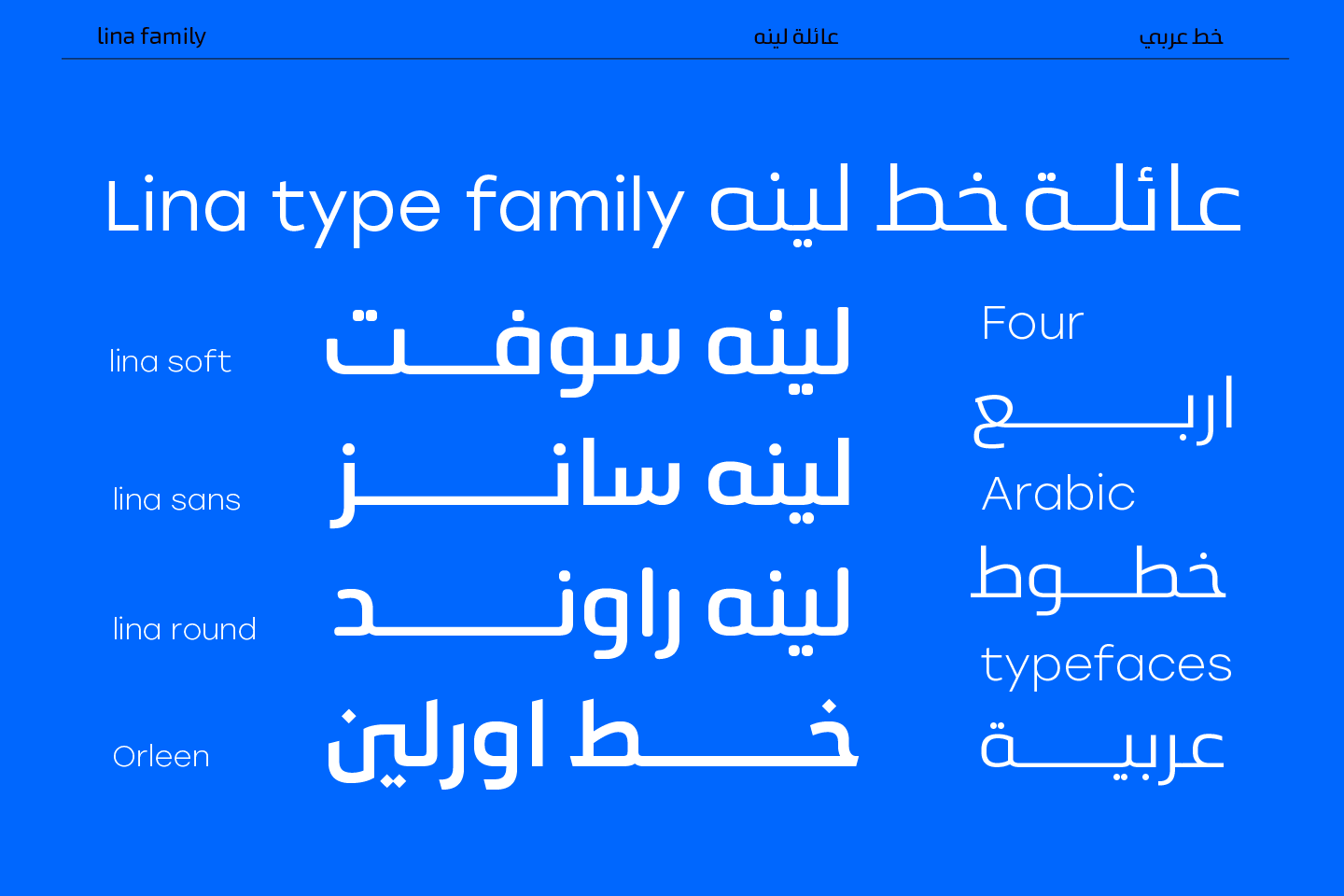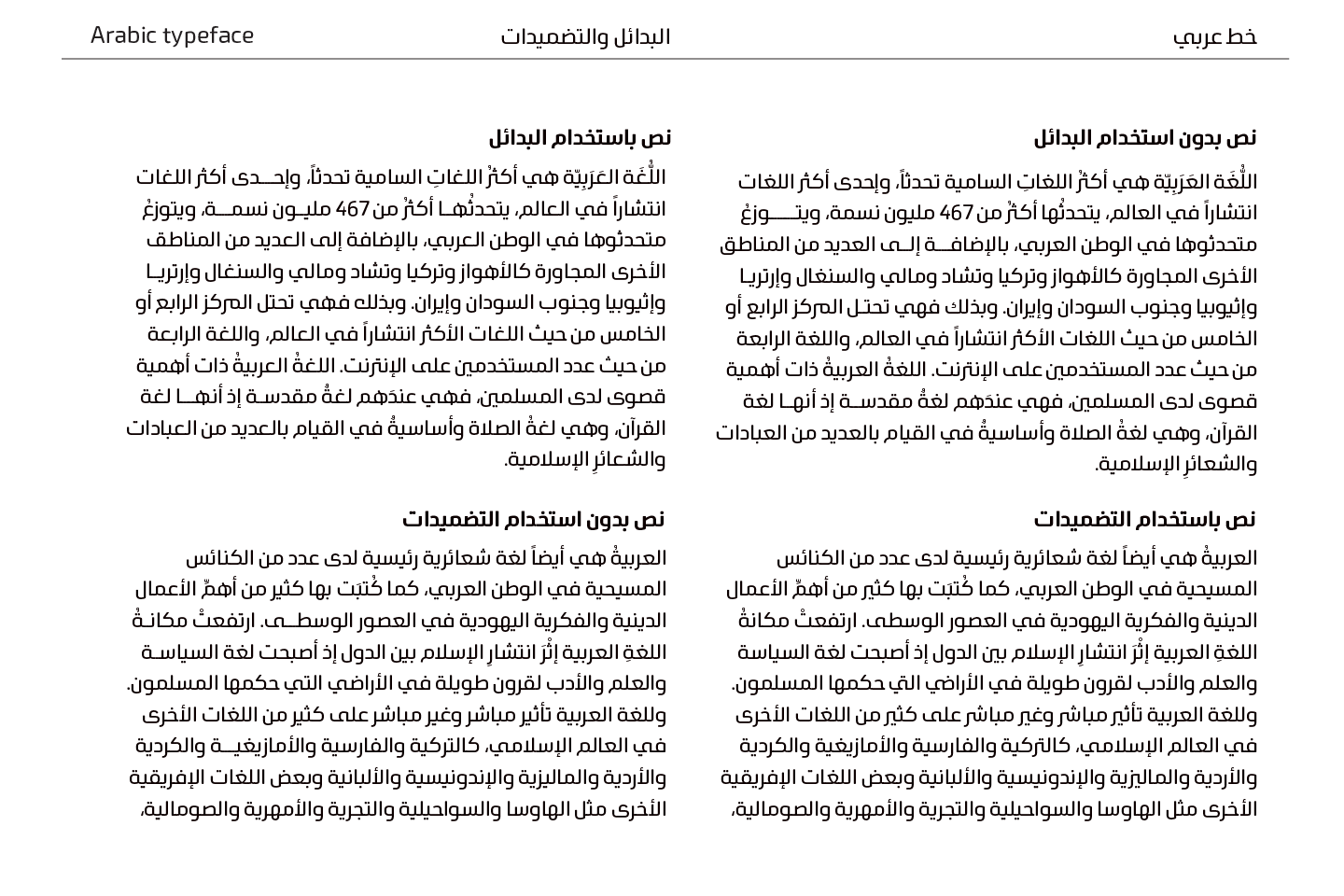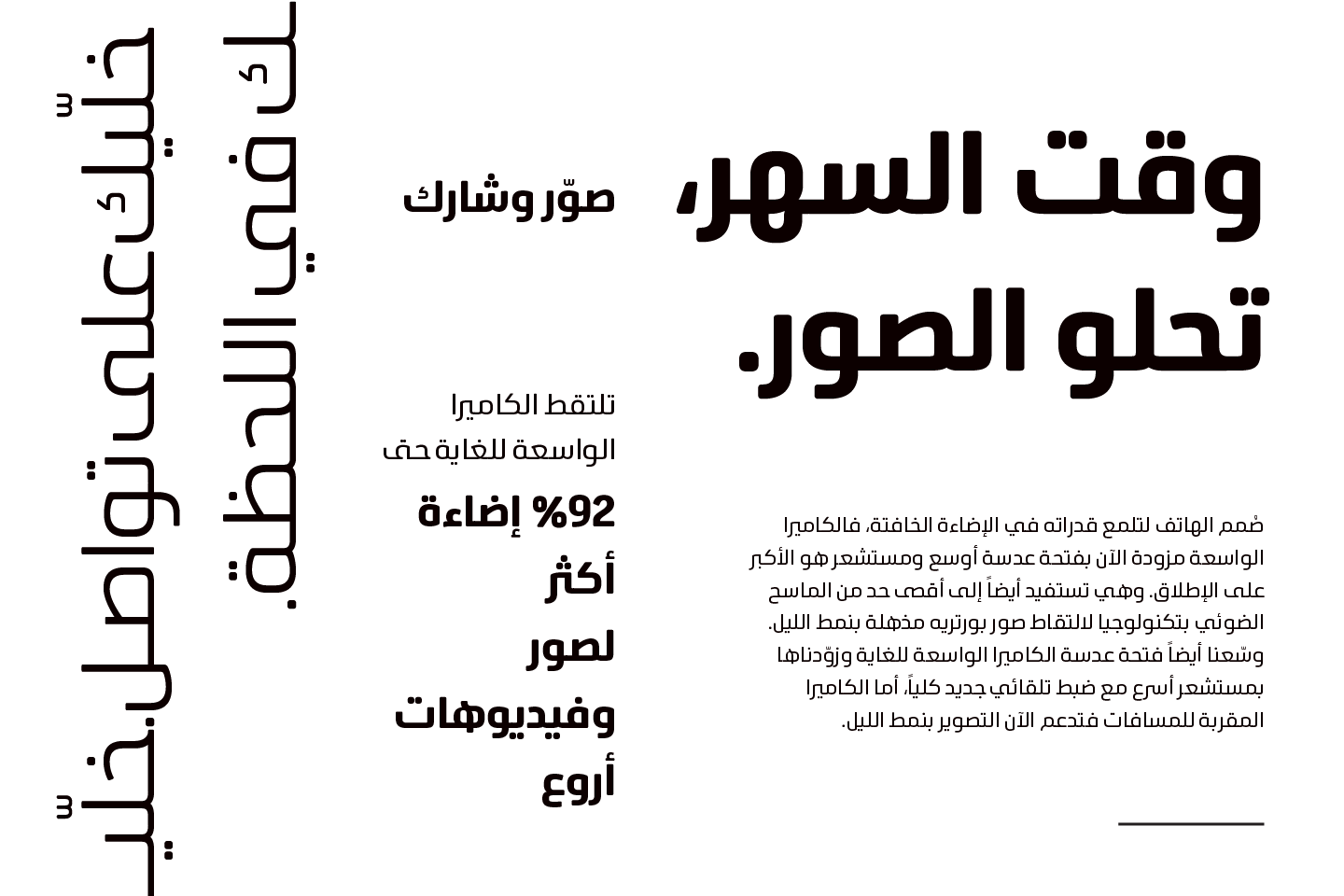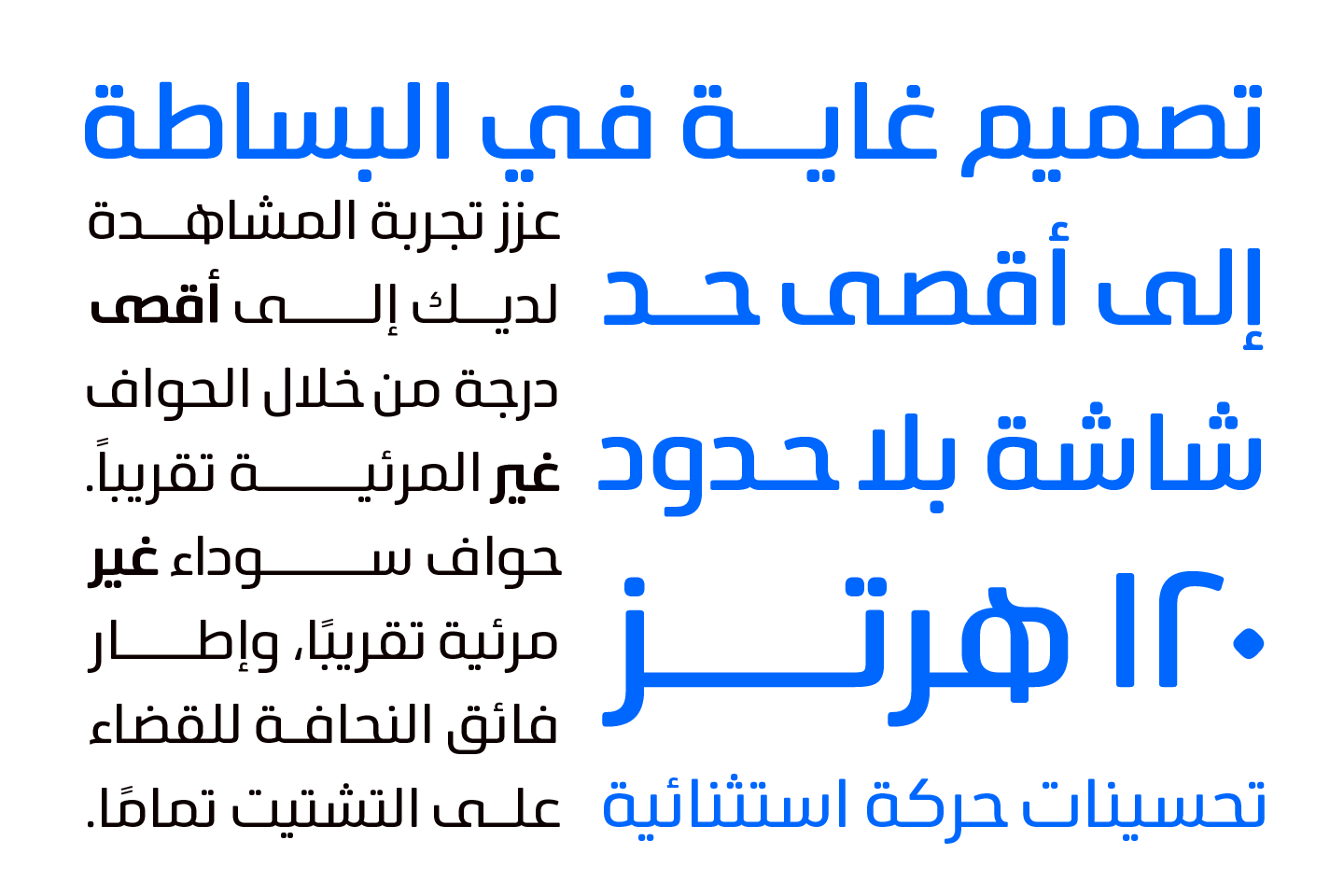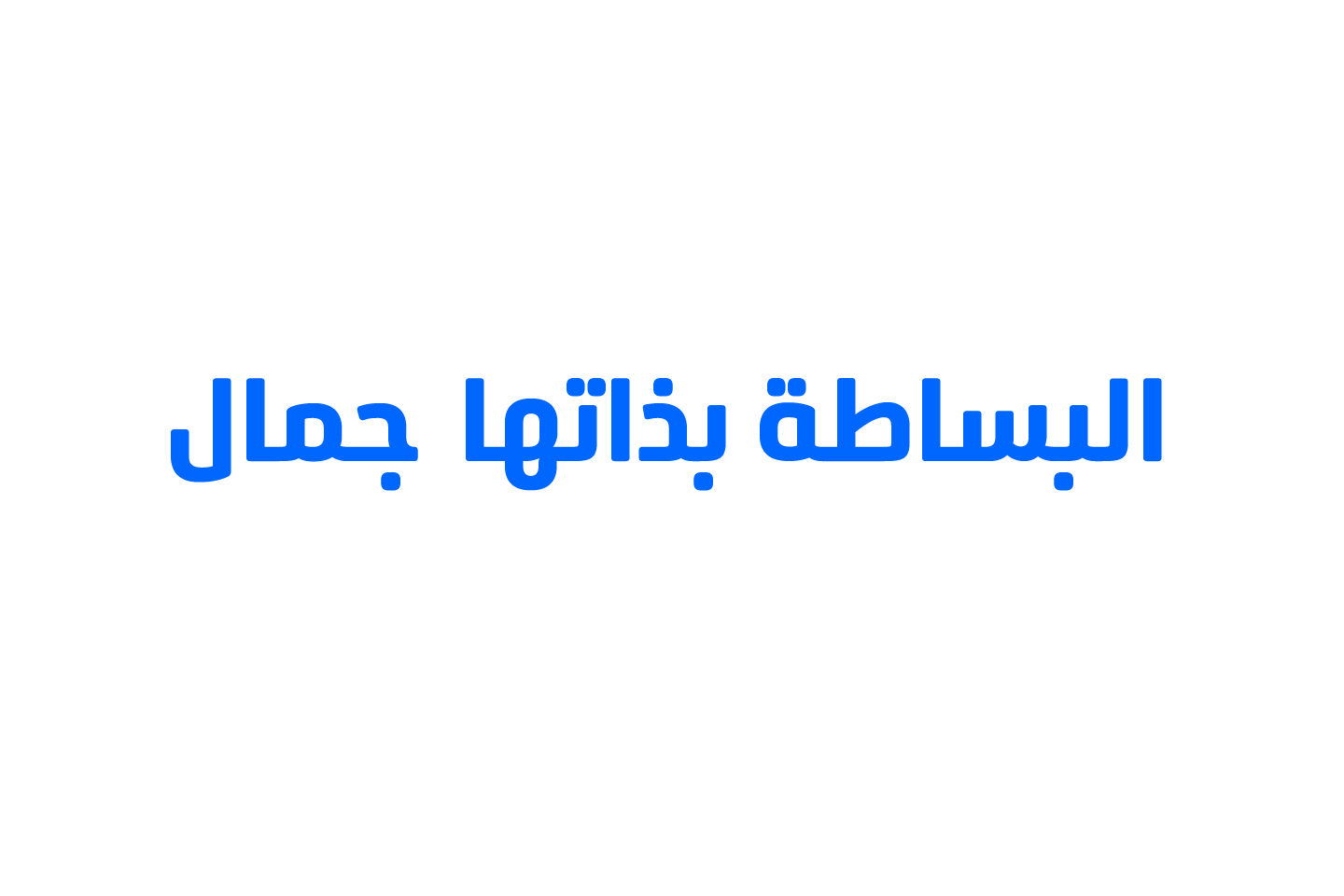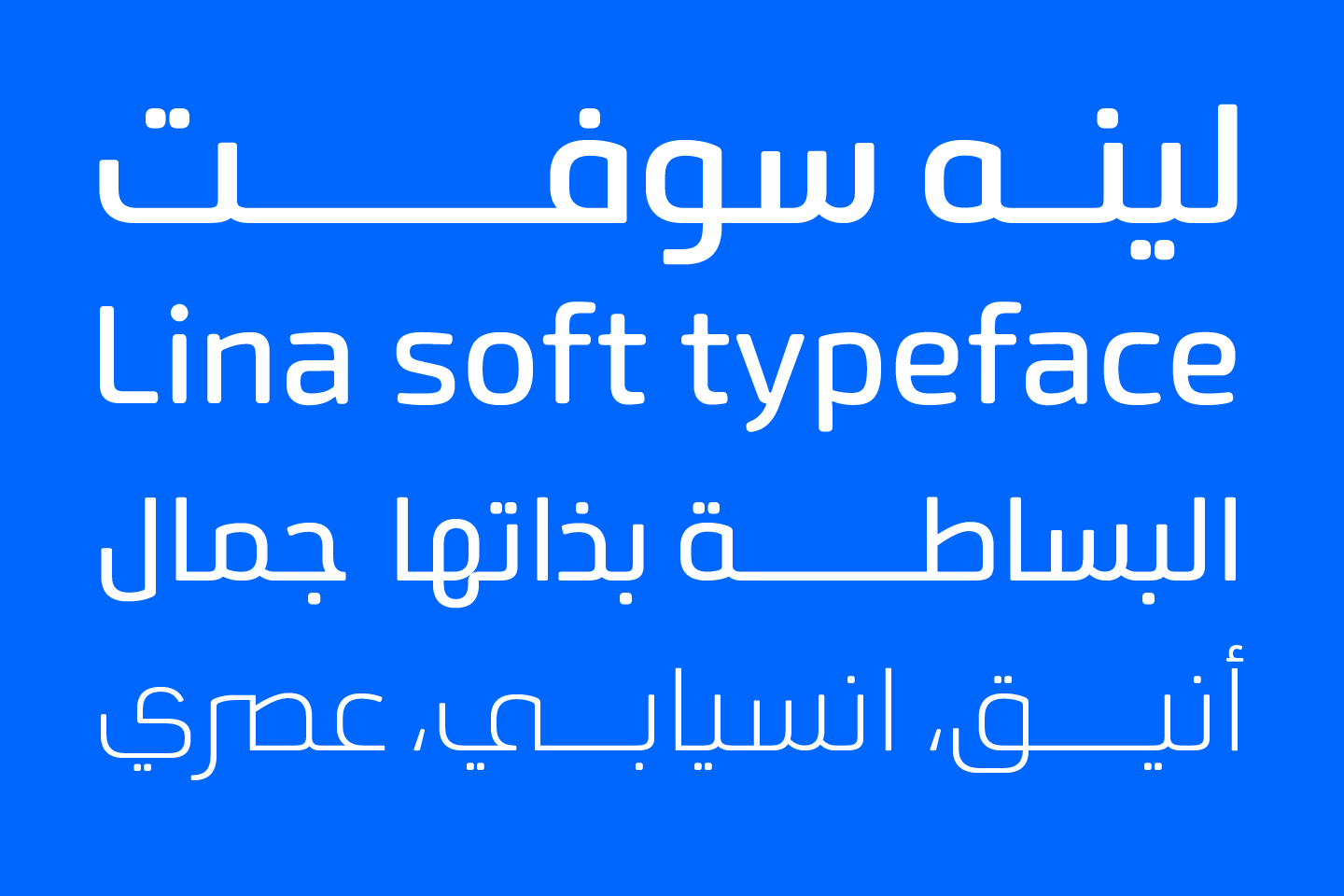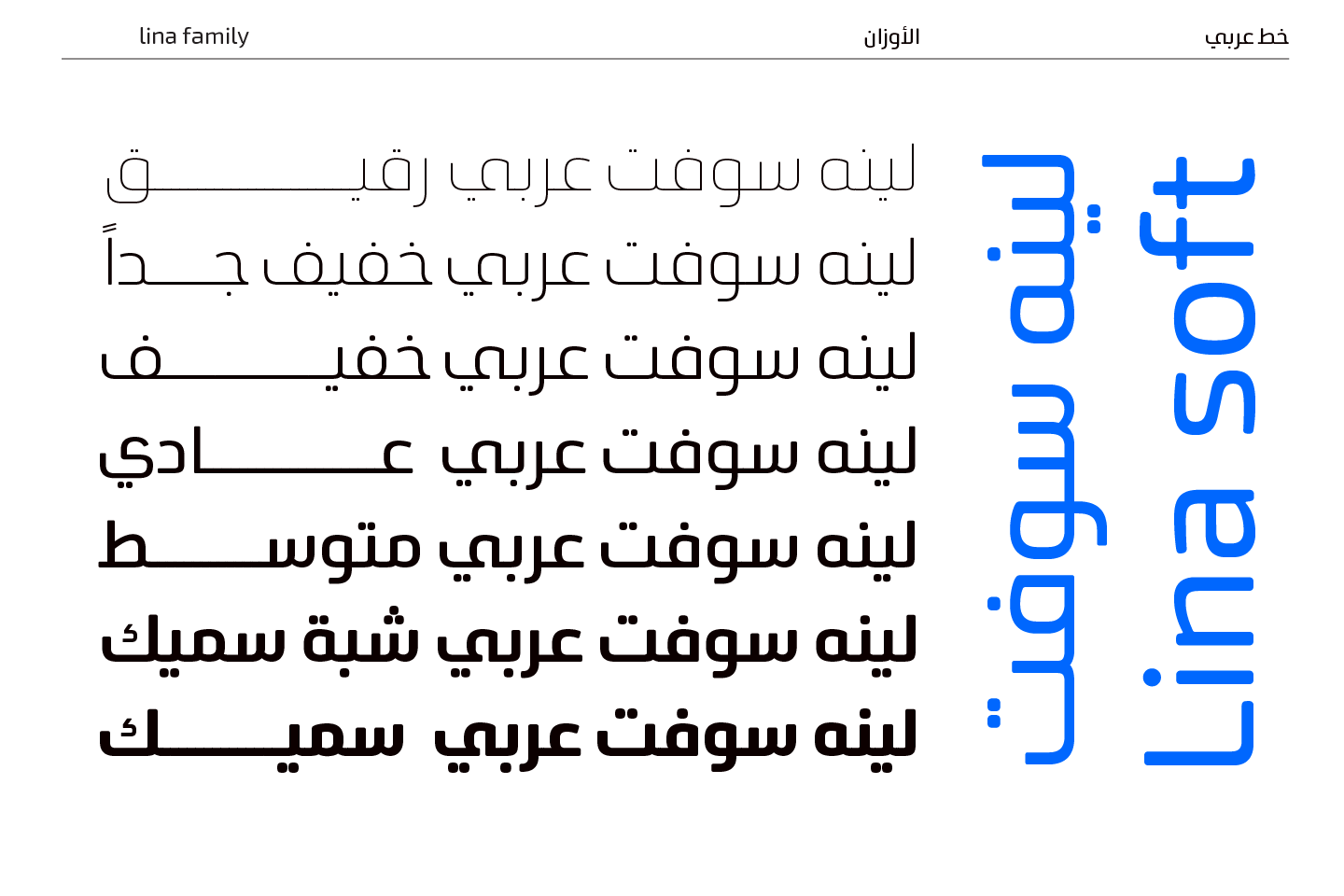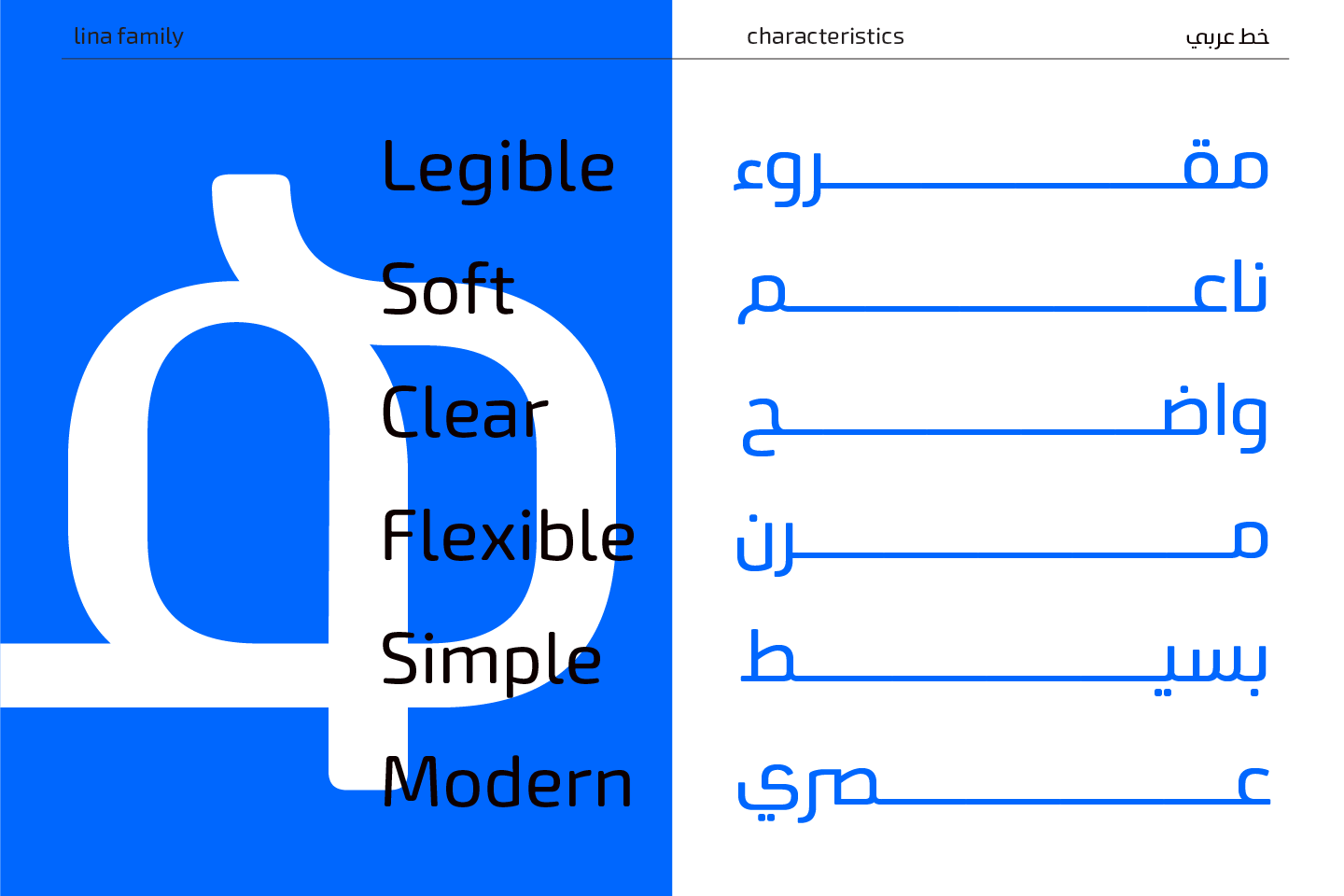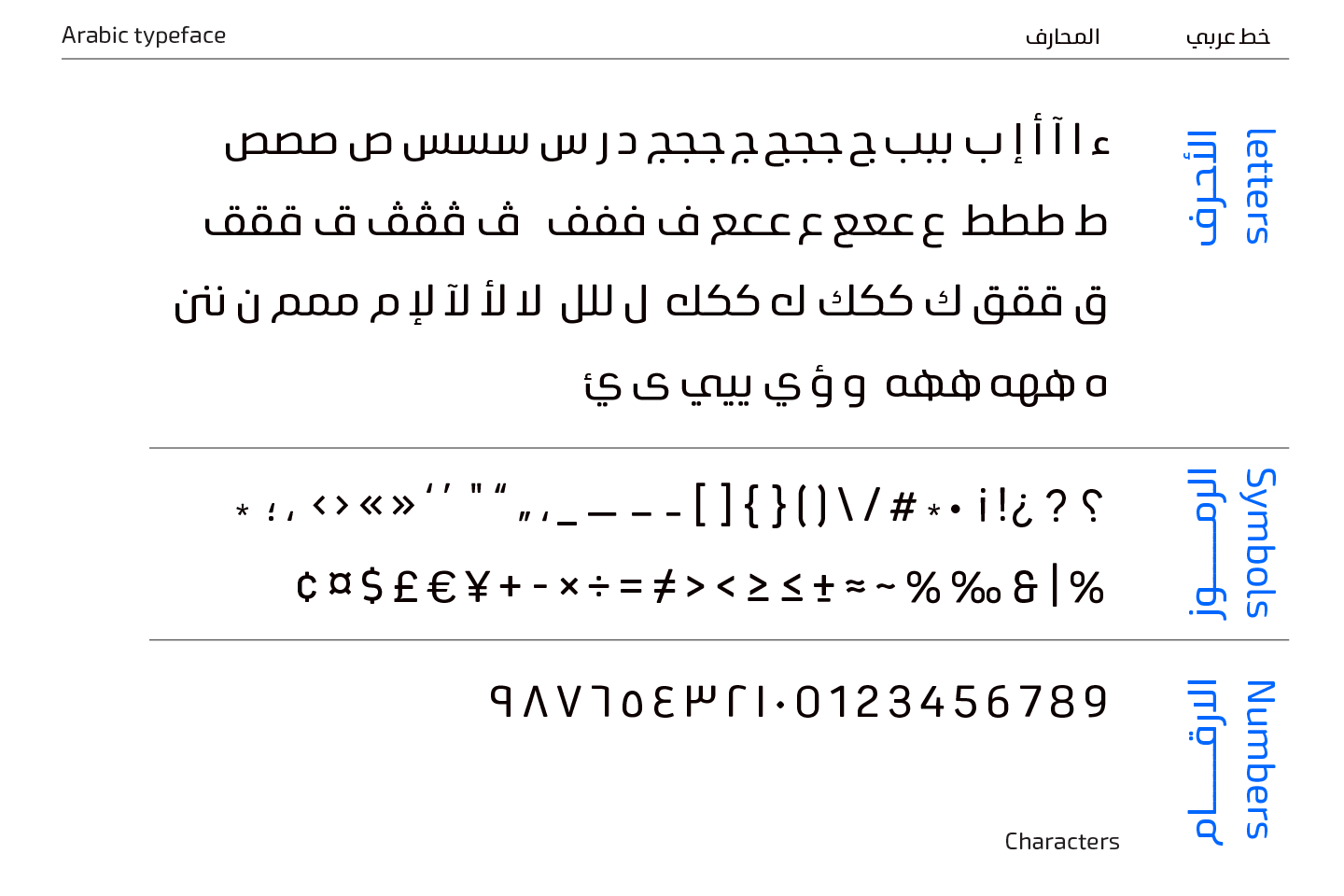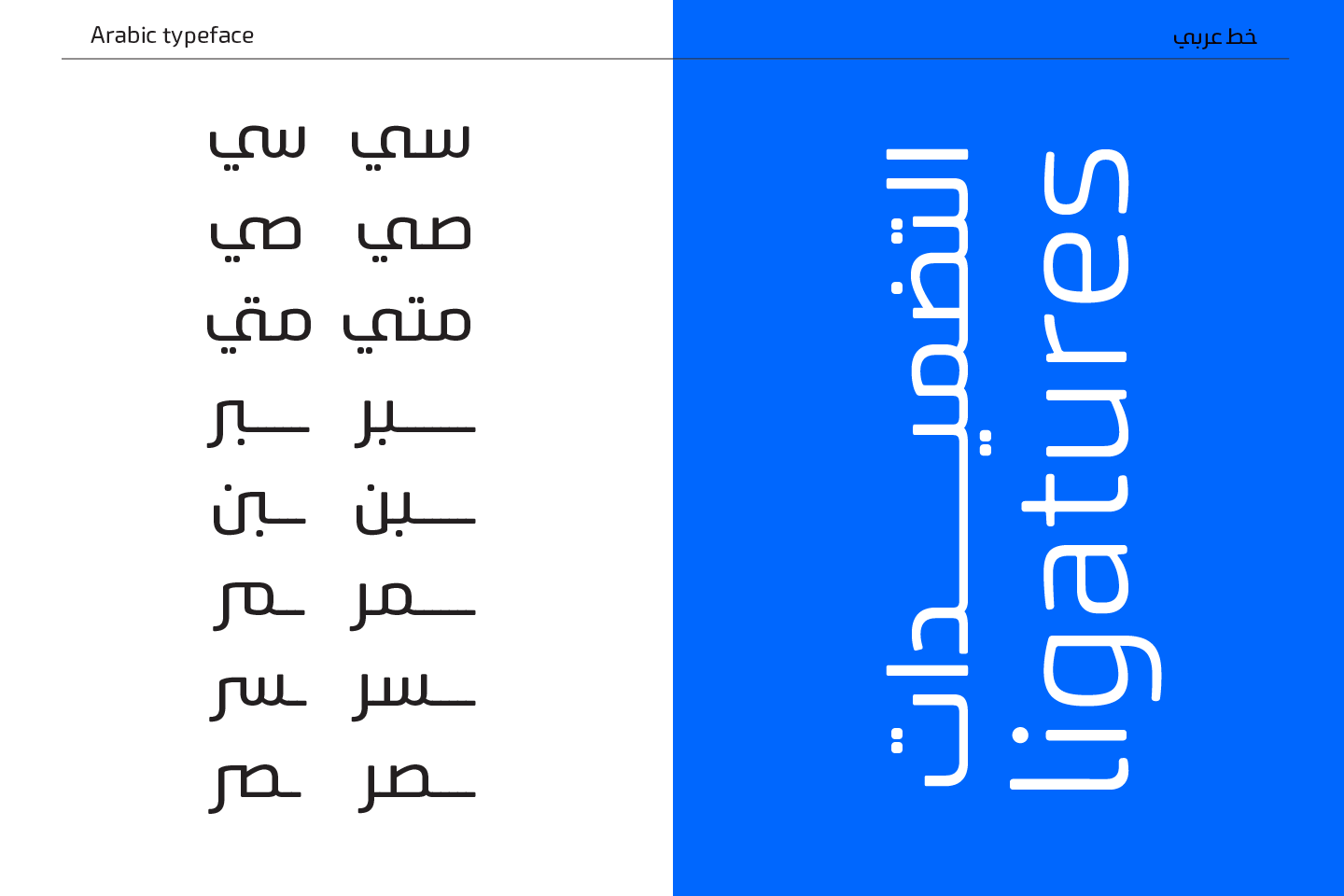
Lina soft typeface – خط لينه سوفت
Lina Soft is an Arabic typeface from Lina-type family, with a warm and humane feeling. It’s legible, soft, clear, flexible, simple, and contemporary. With a handful set of OpenType features and alternatives.  Lina type family consists of Lina soft, Lina sans, Lina round.
the design is inspired by the Kufic calligraphic style and influenced by the Naskh style.
Lina Soft was highly crafted in order to perform well both on screen and in print. The large x-height and open counters make it function well even on small font sizes.
It has a wide range of use possibilities headlines, logotypes, branding, books, magazines, motion graphics, and use on the web and Tv.
Lina Soft consists of 7-weight versions from thin to bold.